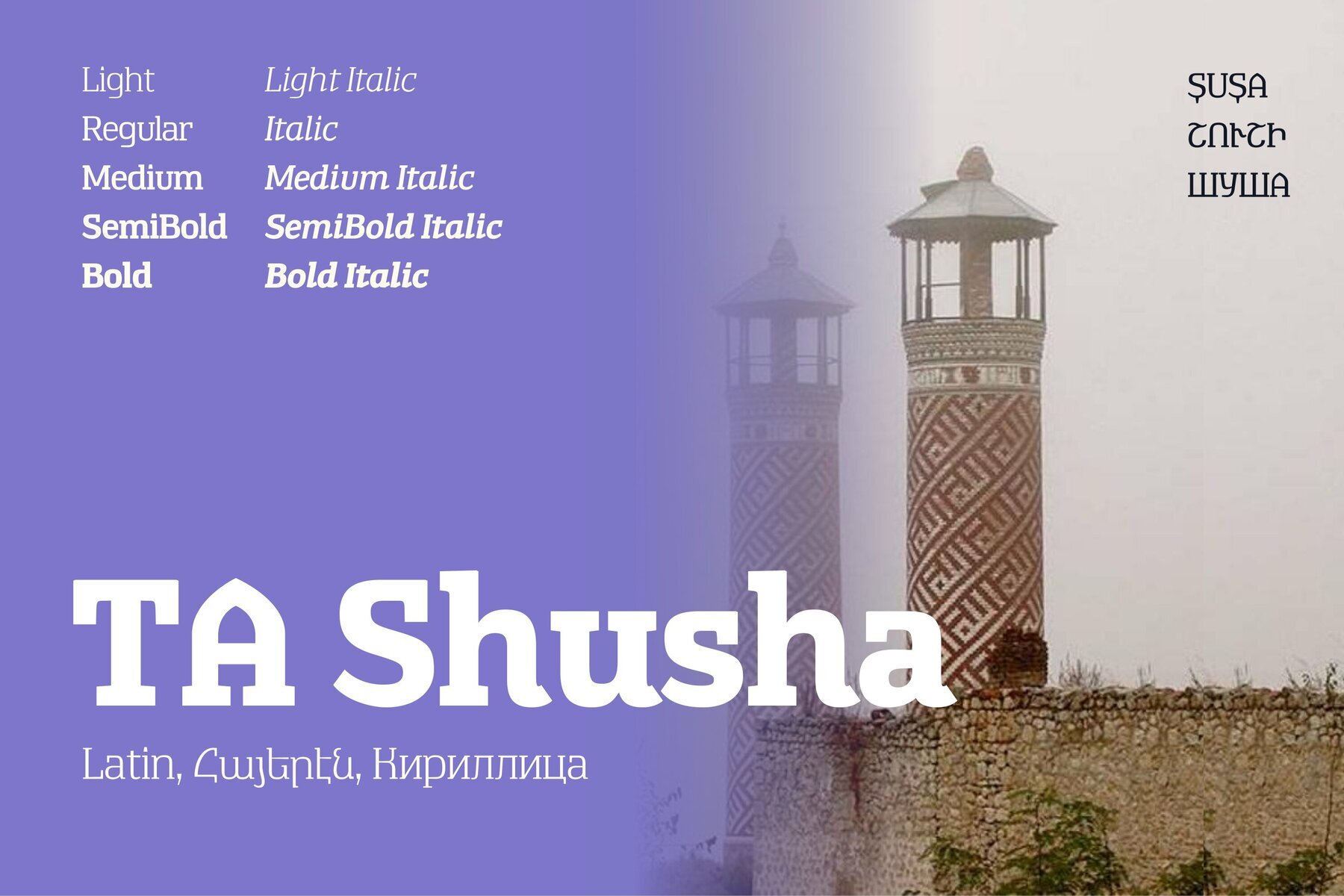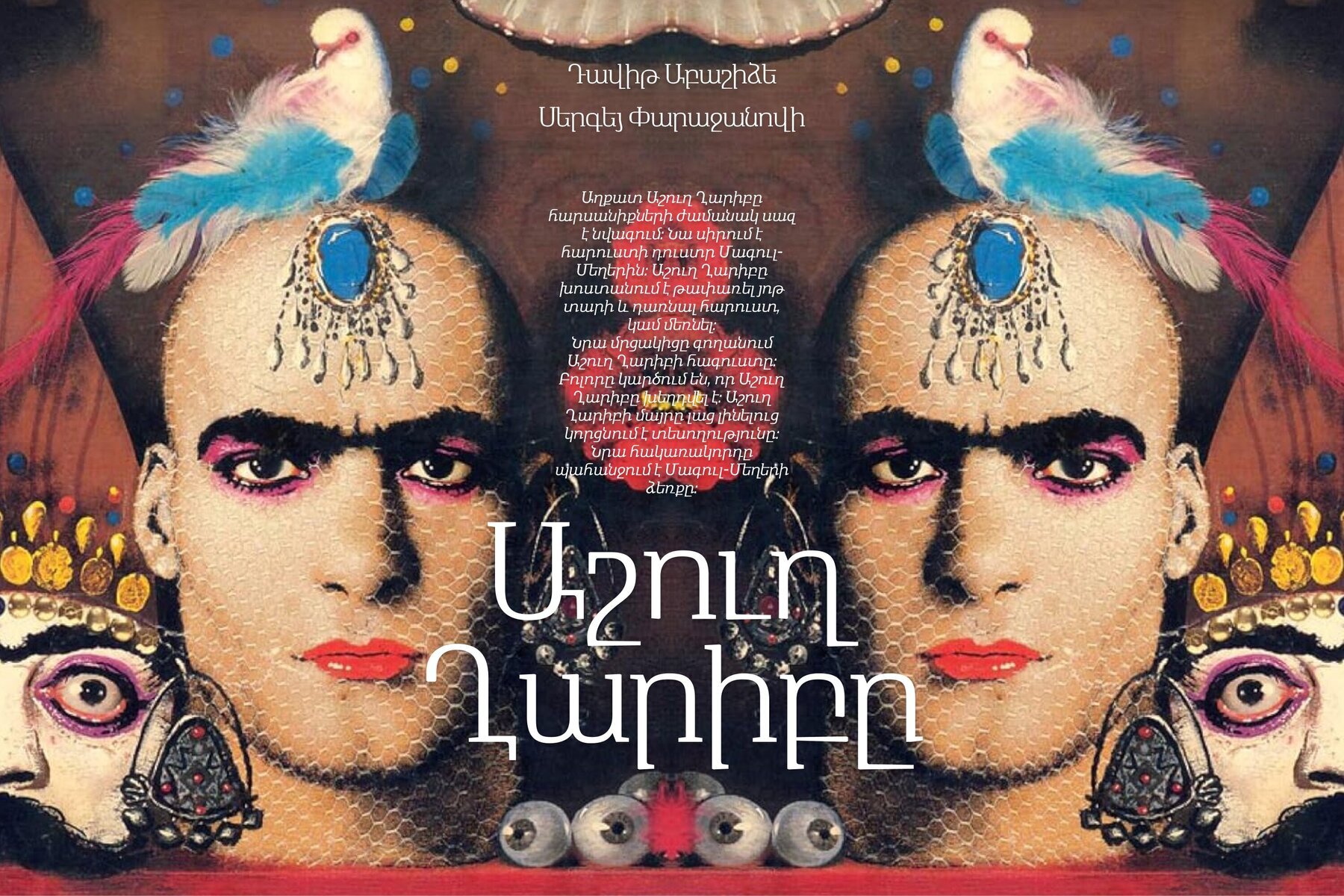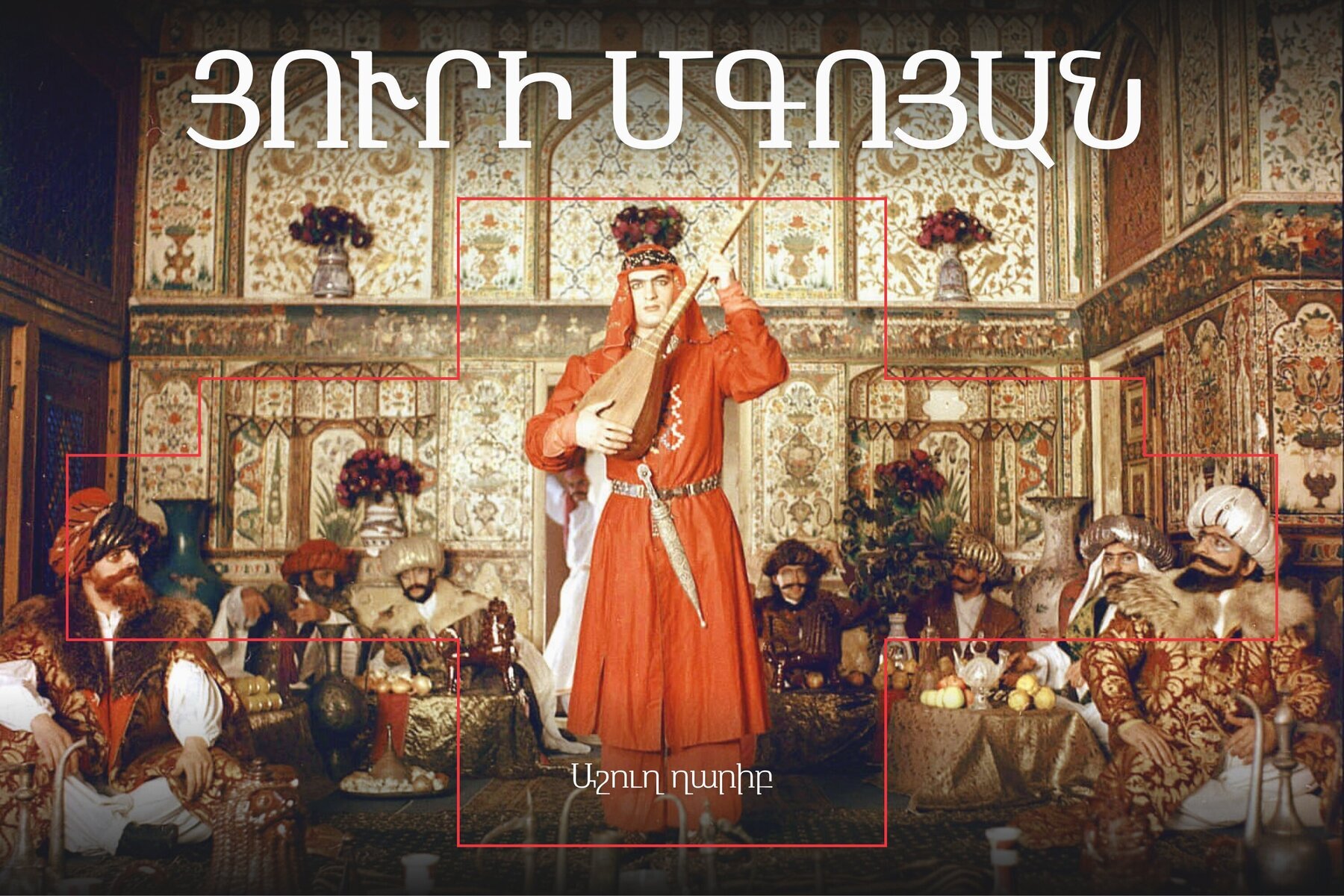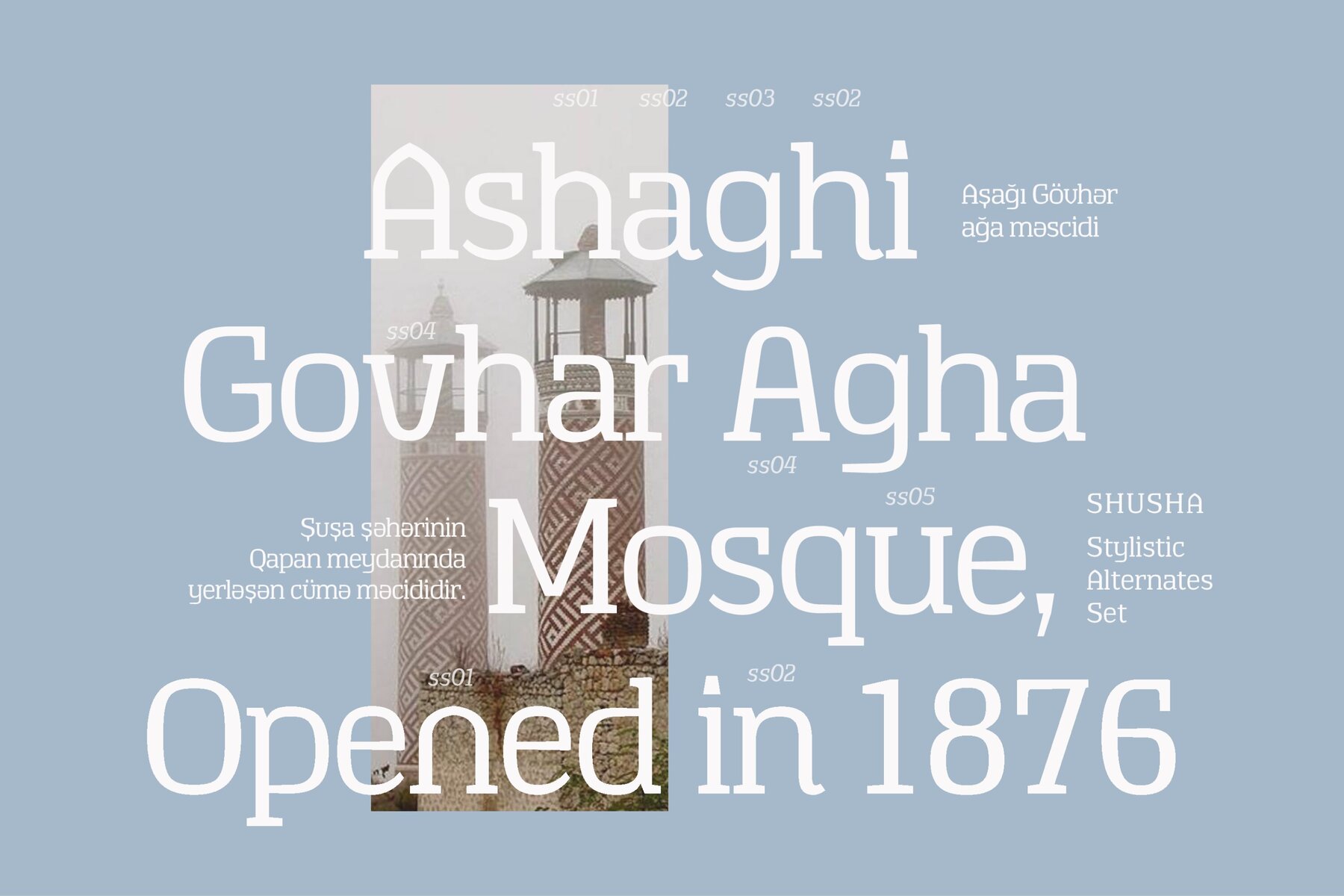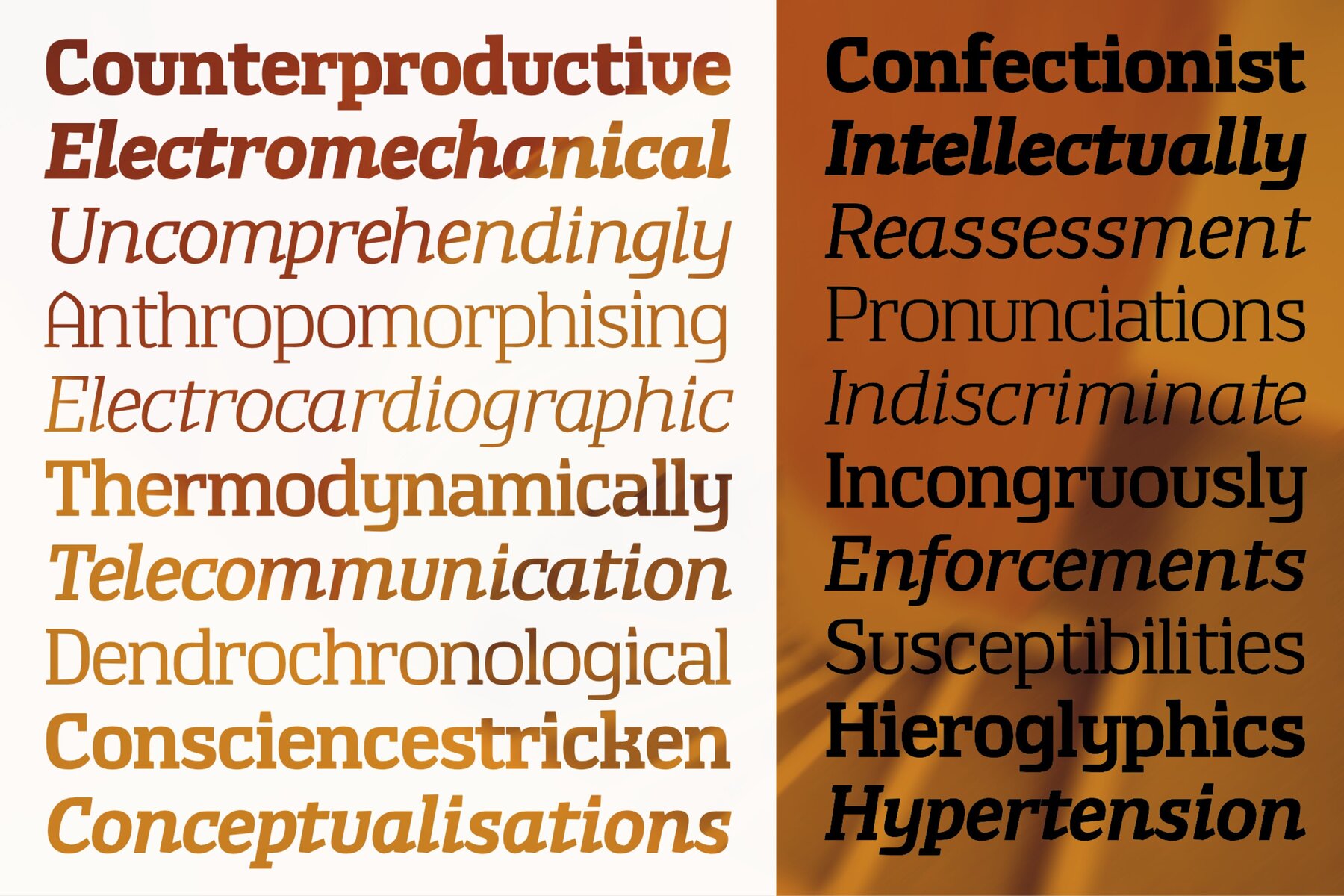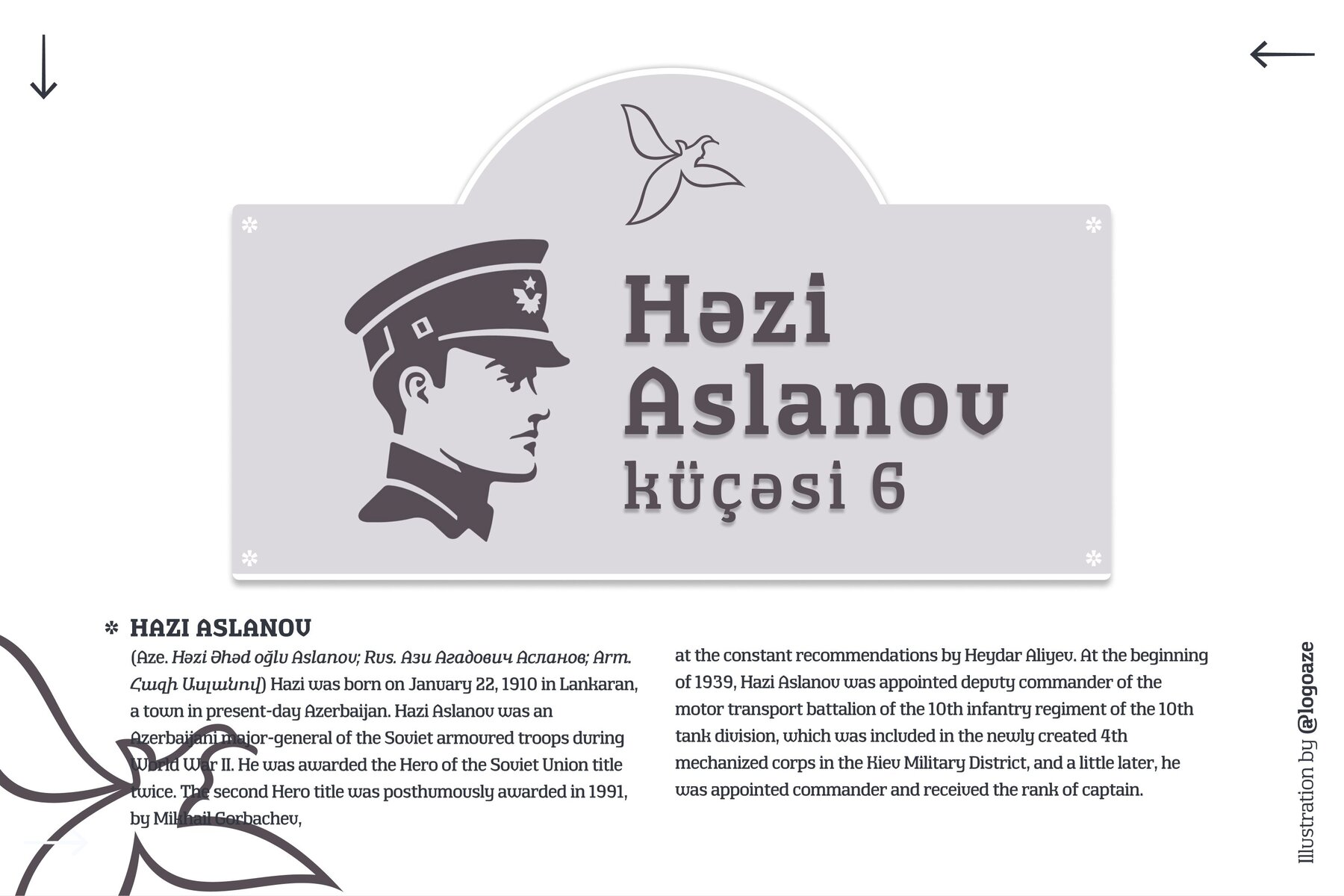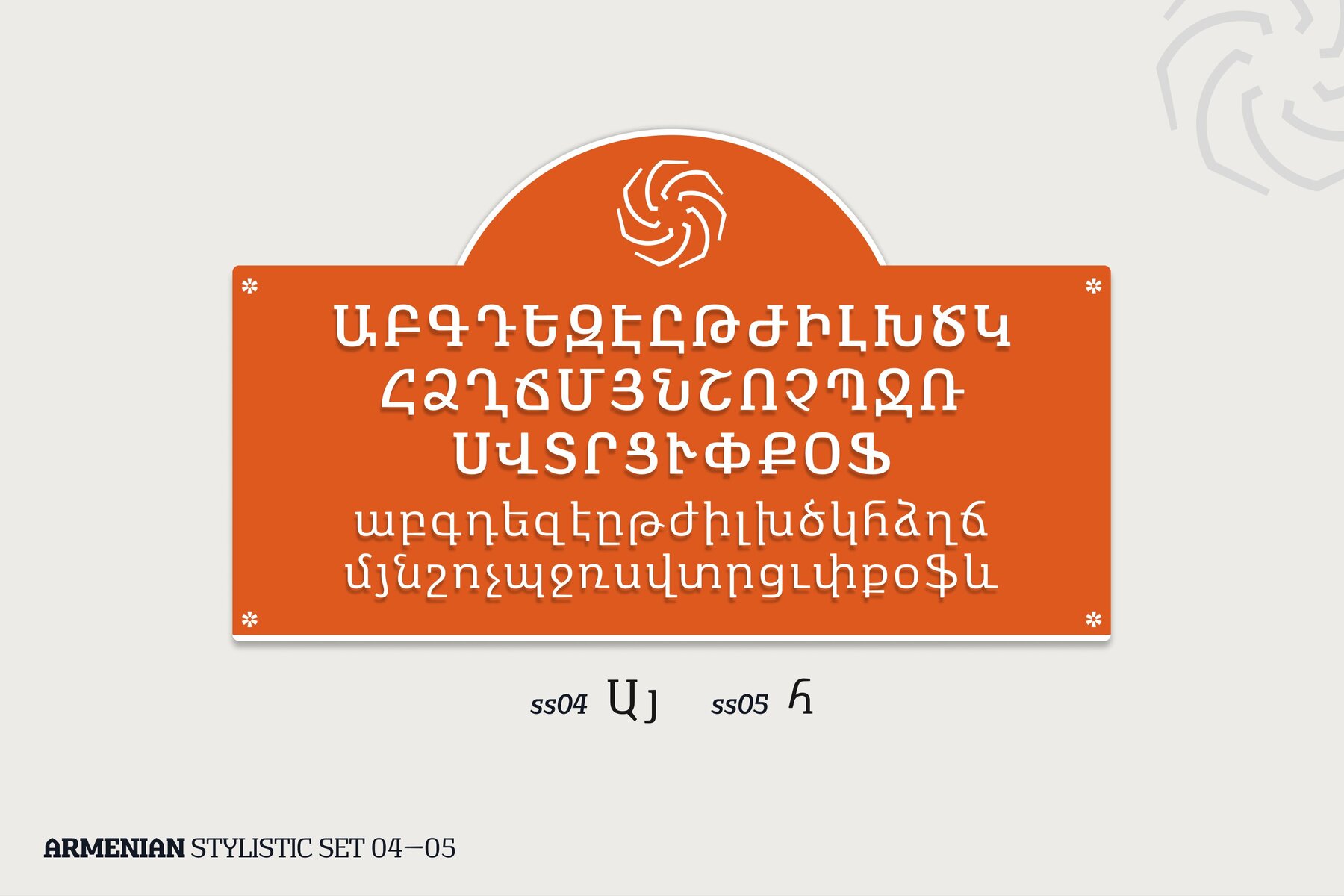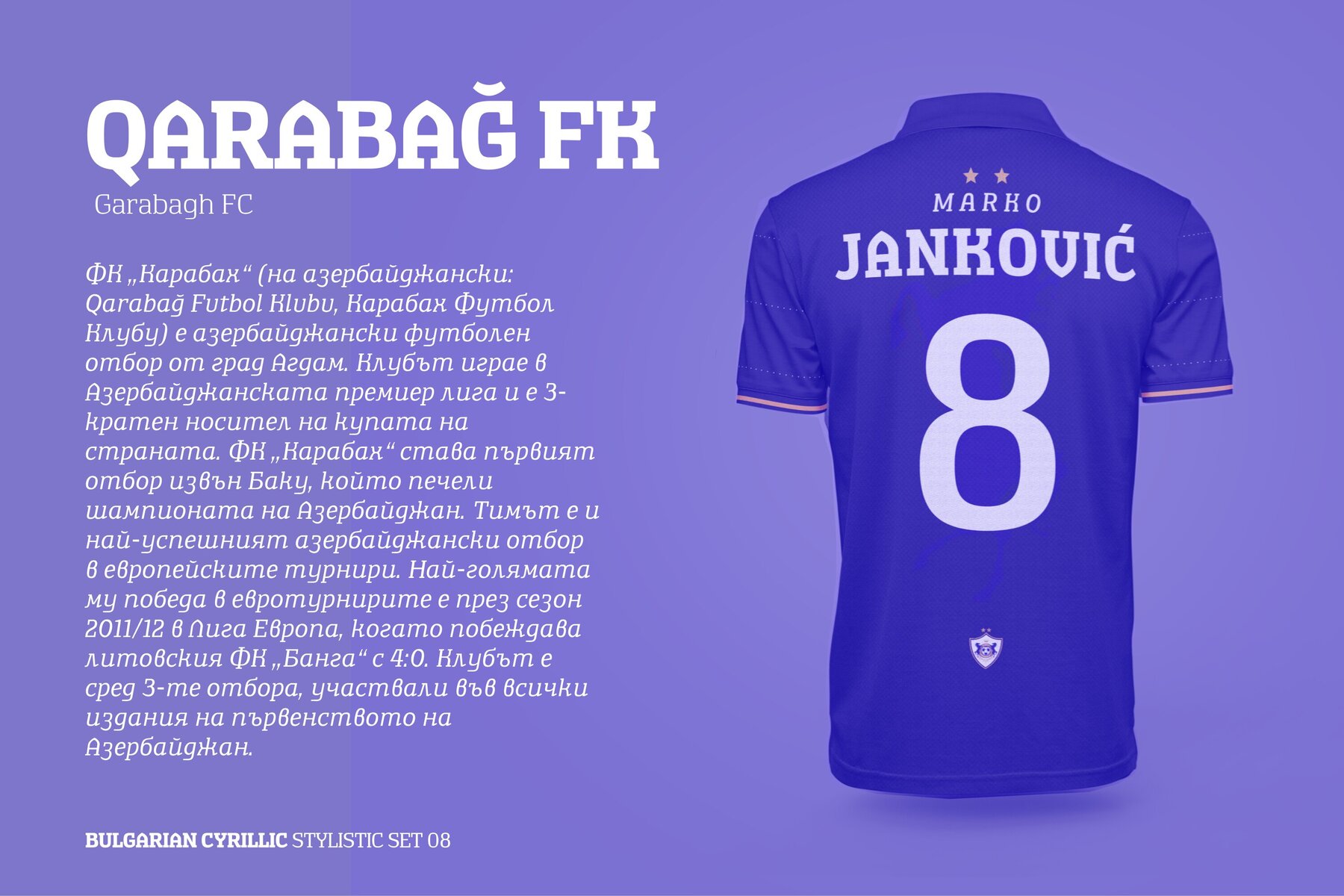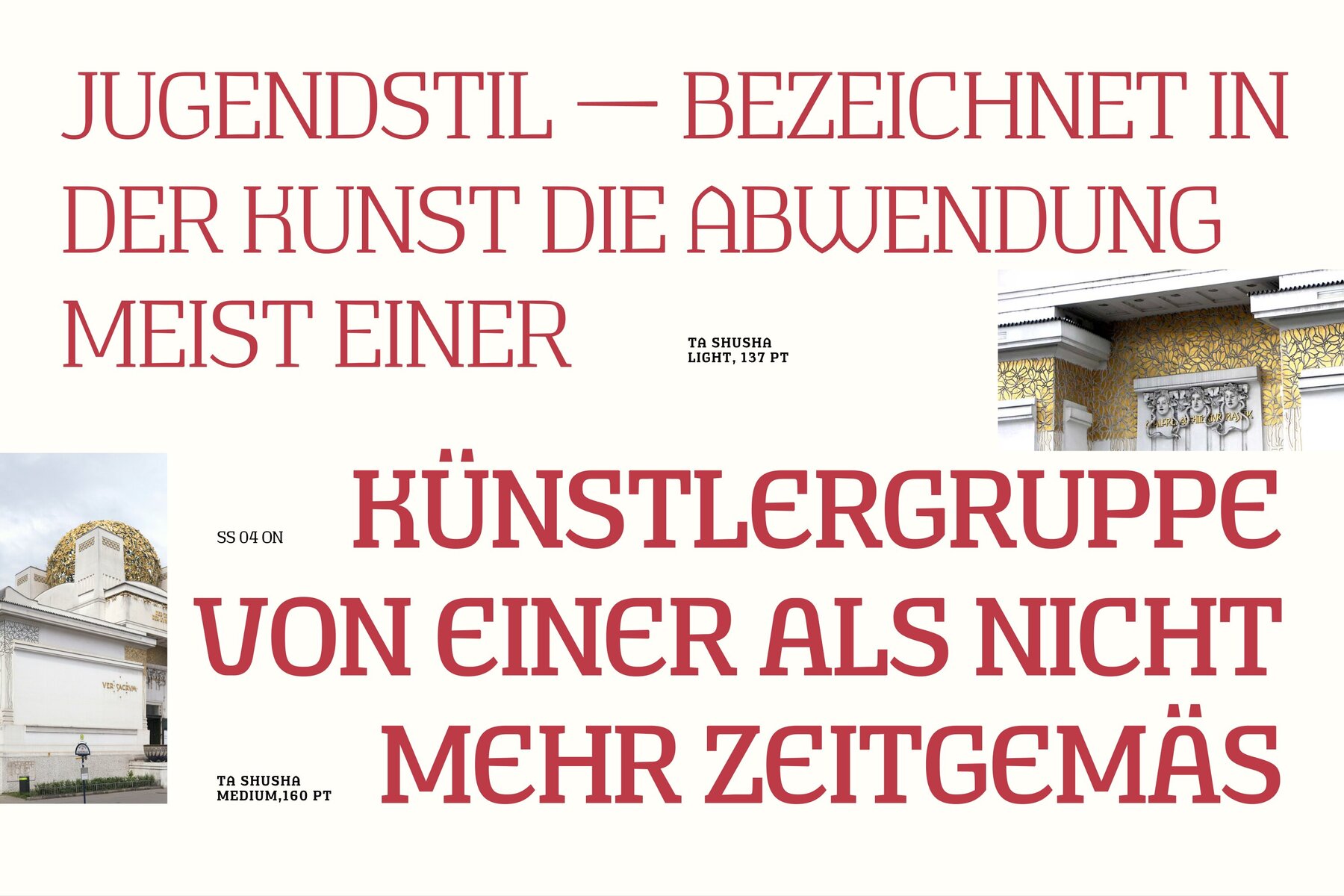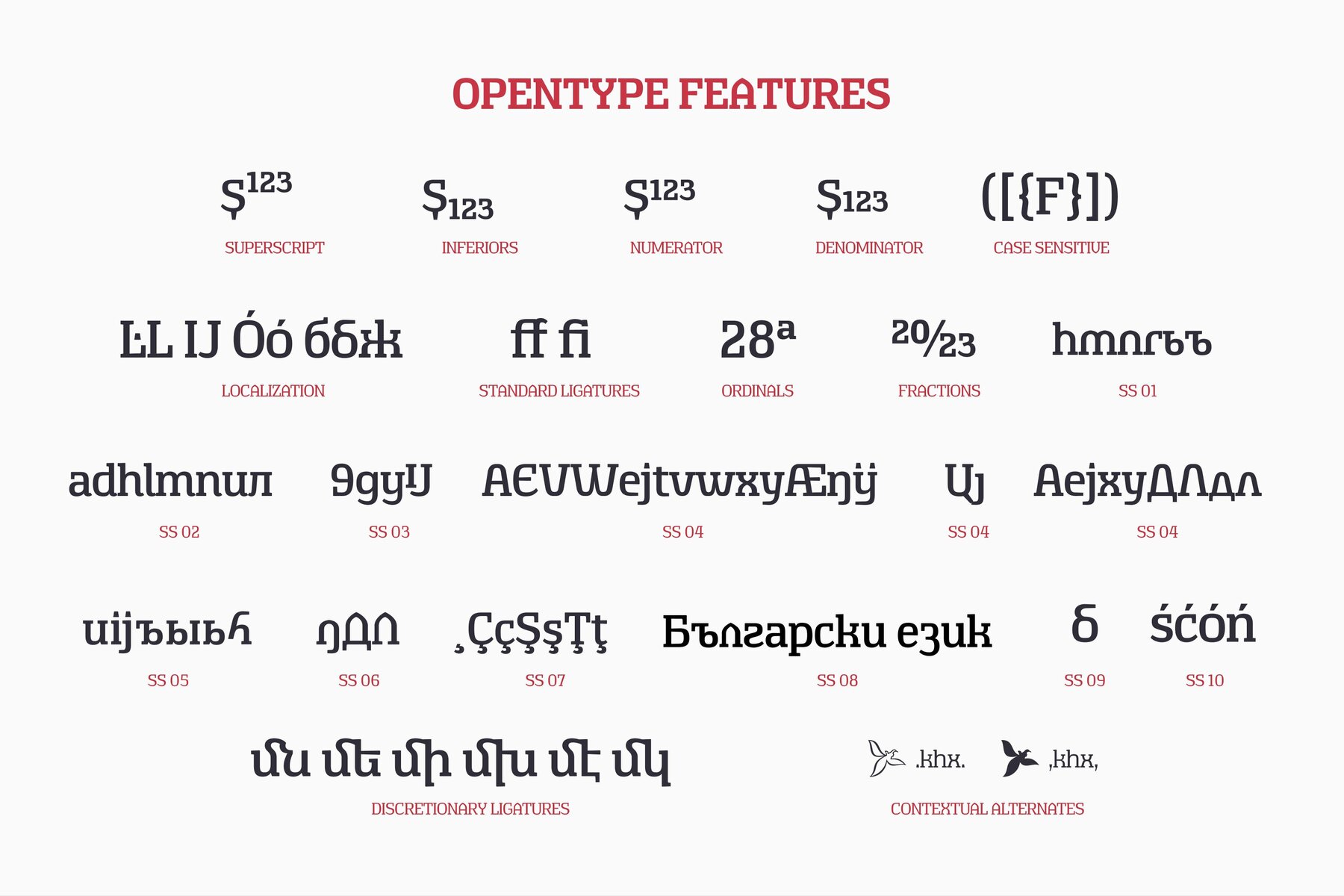
TA Shusha Font
TA Shusha font is a unique typeface, primarily structured around the initials of the city of Shusha, namely 'Ş', 'U', and 'A'. Inspired by the rich history and diverse cultural heritage of Shusha city, this font is meticulously designed to represent the languages of different peoples, its mountains, fortresses, as well as its historical and cultural monuments. The font is offered in 5 different sizes and also includes italic versions to lend a dynamic look to your texts. In addition to supporting the Latin alphabet, TA Shusha font is localized for Polish characters, ensuring that Polish diacritics, such as acute accents, are specially designed. Not only does TA Shusha font support the Latin alphabet, but it also encompasses the Armenian and Cyrillic alphabets. Furthermore, it provides special Cyrillic scripts for countries like Bulgaria, Serbia, and Macedonia, enabling its usage in various cultural contexts. TA Shusha font is specifically designed to express the rich and diverse heritage of Shusha. You can choose TA Shusha font to reflect this unique historical and cultural context in your typography.